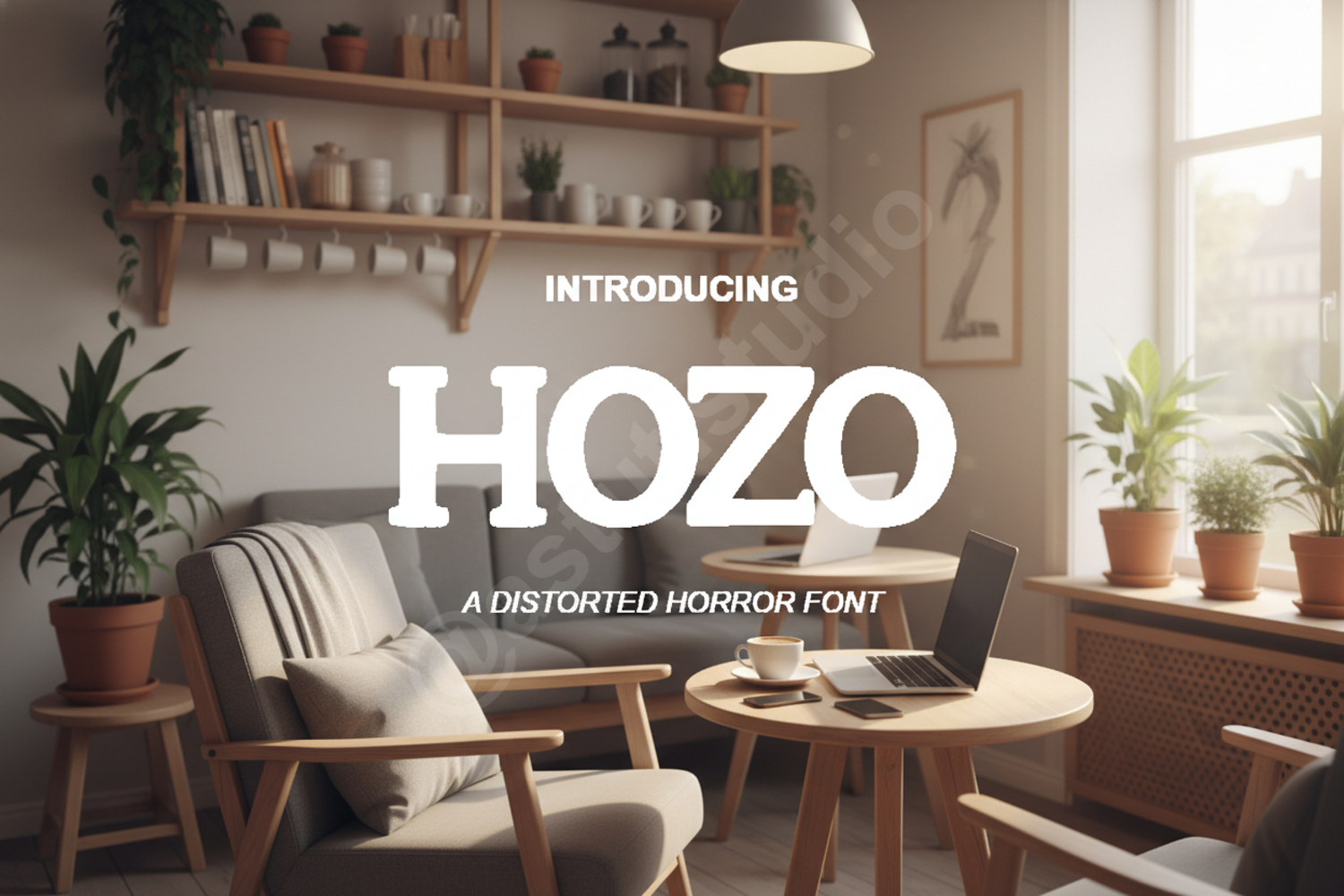
Hozo - Sleek Modern Sans Serif Typeface
Hozo
Hozo is a premium sans-serif typeface that embodies modern minimalism and sophisticated design. Crafted with precision, this font offers a clean and balanced aesthetic that ensures legibility across various platforms. Whether you are working on a high-end corporate identity or a minimalist editorial layout, Hozo provides the versatility needed to elevate your creative projects to a professional standard.
- Full set of uppercase and lowercase letters
- Multilingual support for global accessibility
- Branding and Visual Identity: Perfect for creating memorable logos and cohesive brand guidelines.
- Editorial Design: Ideal for magazine headers, body text, and premium book covers.
- Web and Mobile Apps: High legibility makes it an excellent choice for clean UI/UX design.
- Advertising: Clean lines that capture attention in social media graphics and digital posters.
- Stationery: Adds a professional and contemporary touch to business cards and letterheads.